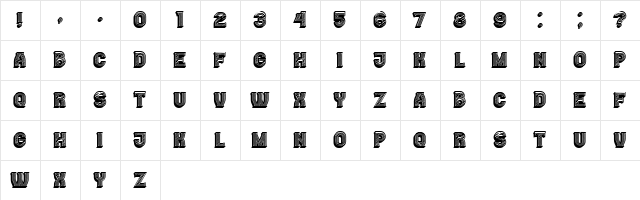
Casino 3D Lines Regular
Design Context for Casino 3D Lines Typeface
Casino 3D Lines is a composed and adaptable typeface that performs quietly and consistently across a wide range of design contexts.
Pro Tip: Pair Casino 3D Lines with a font of contrasting weight or personality to build a more expressive typographic hierarchy.